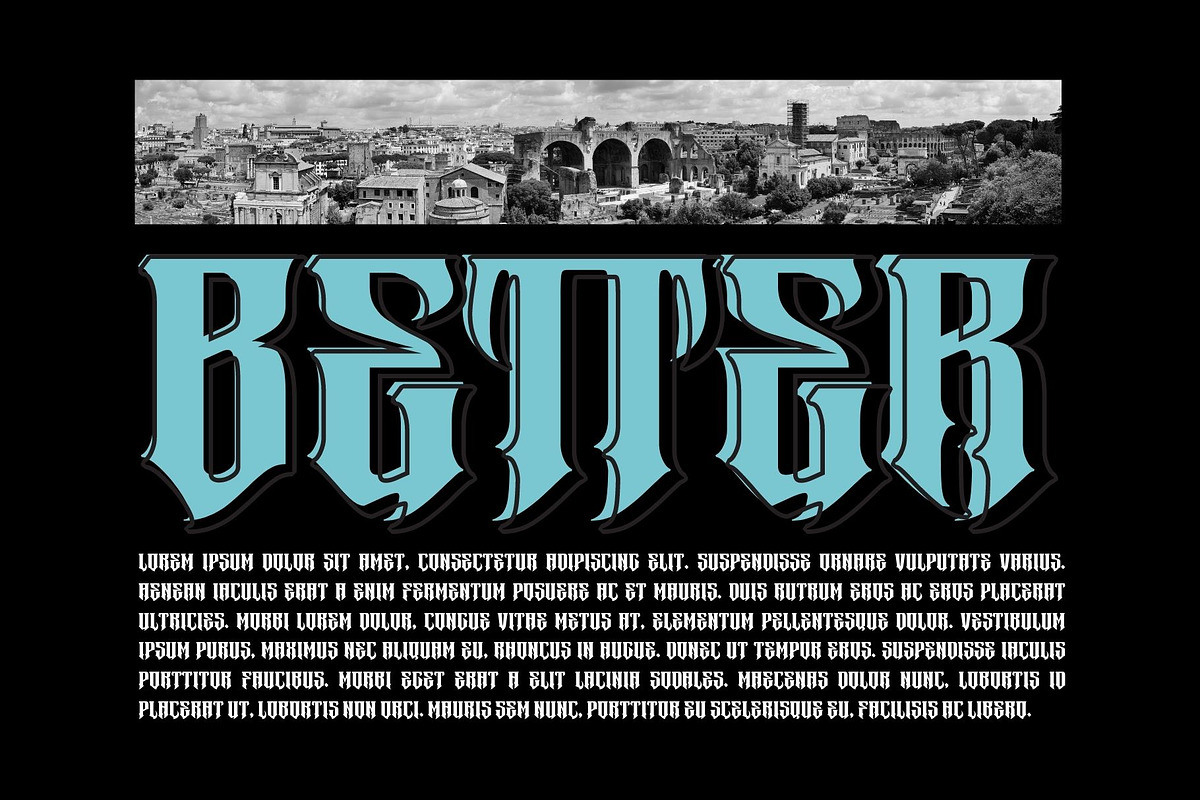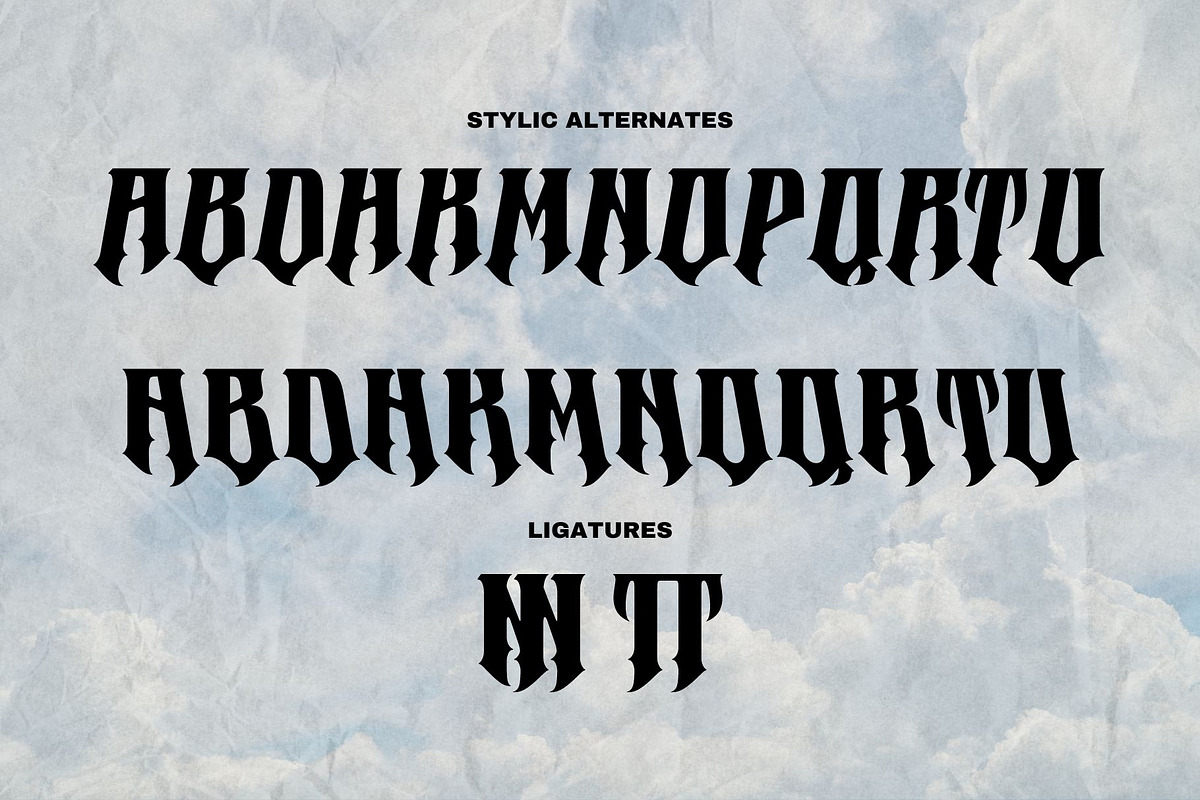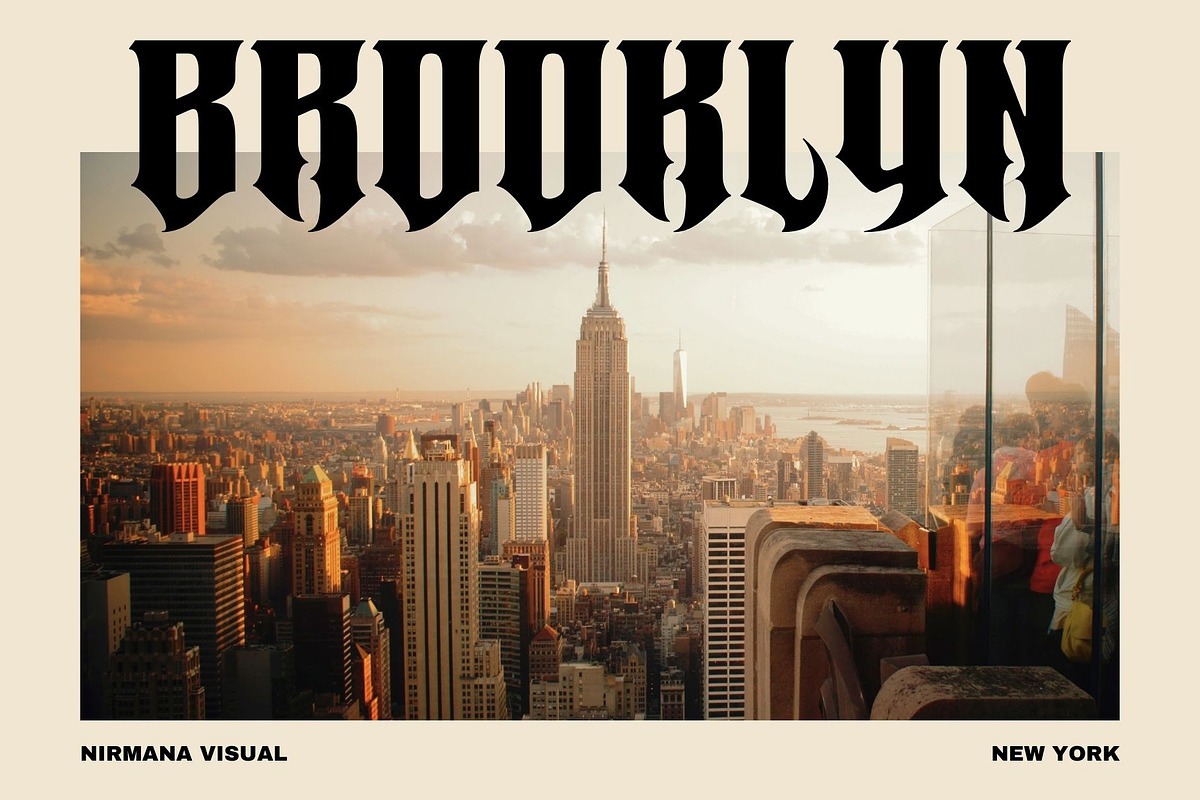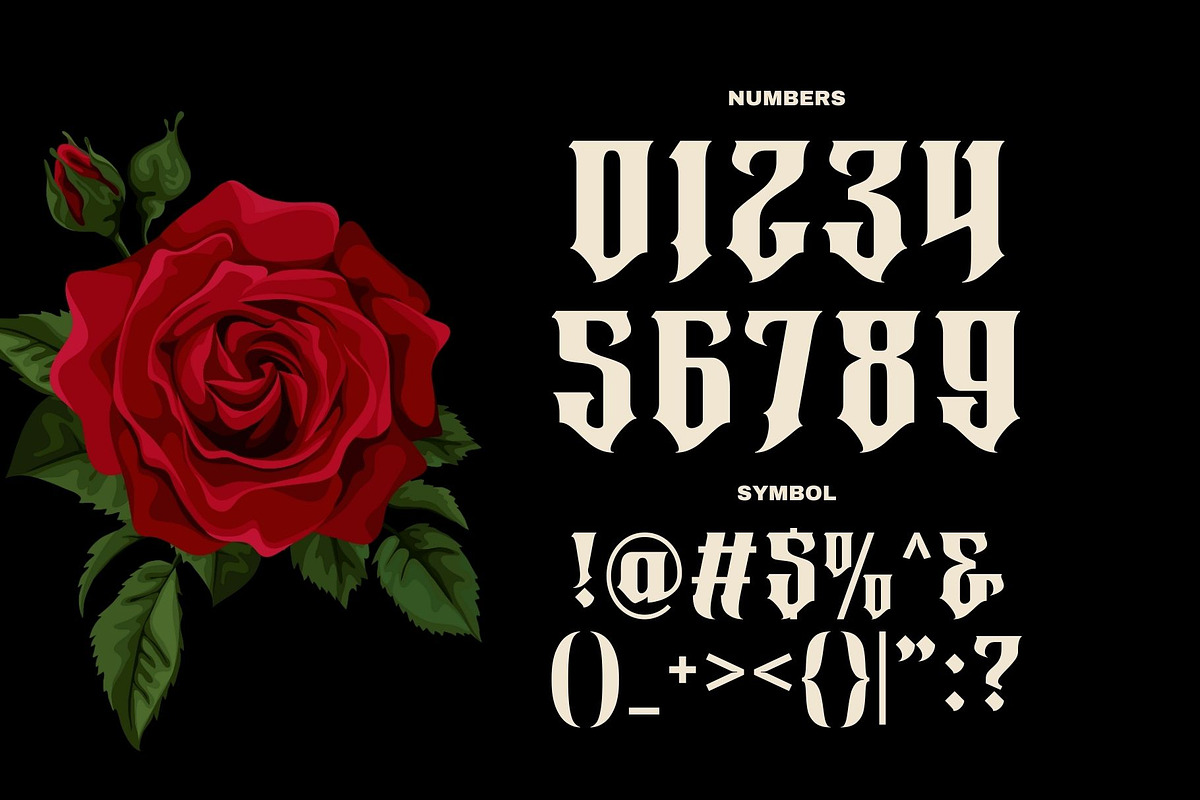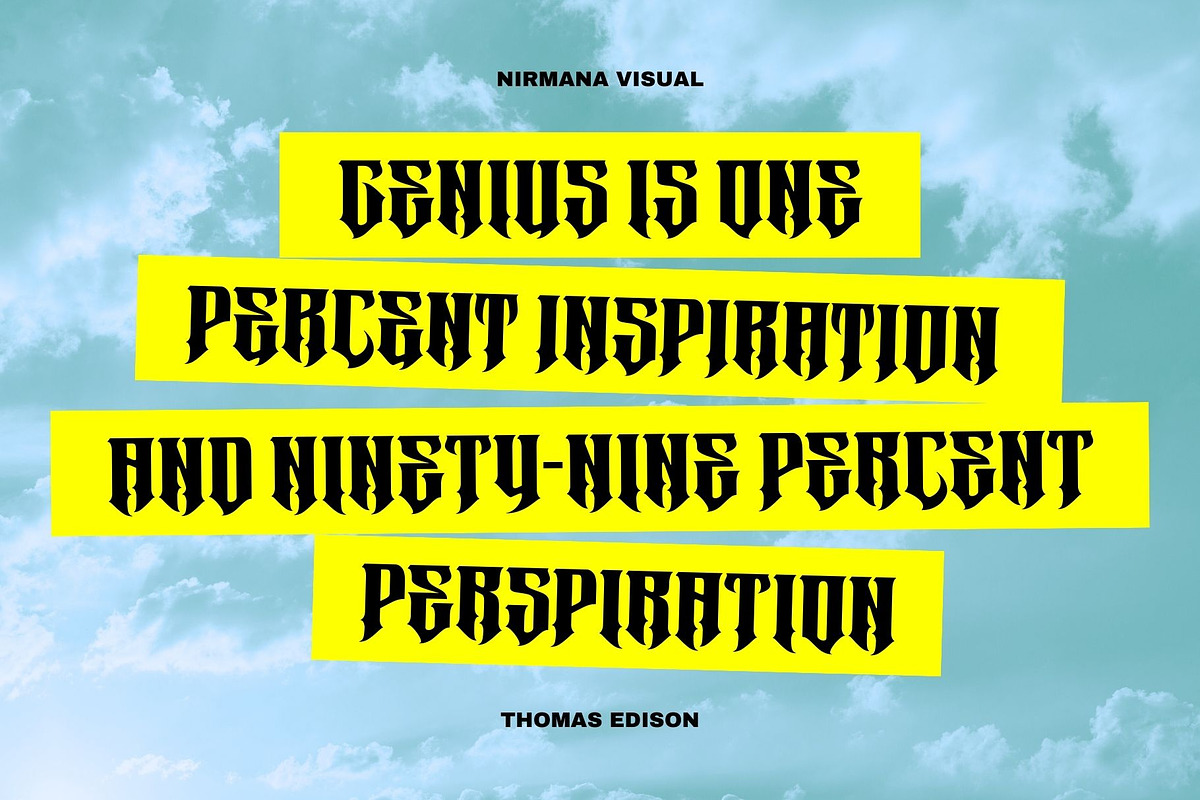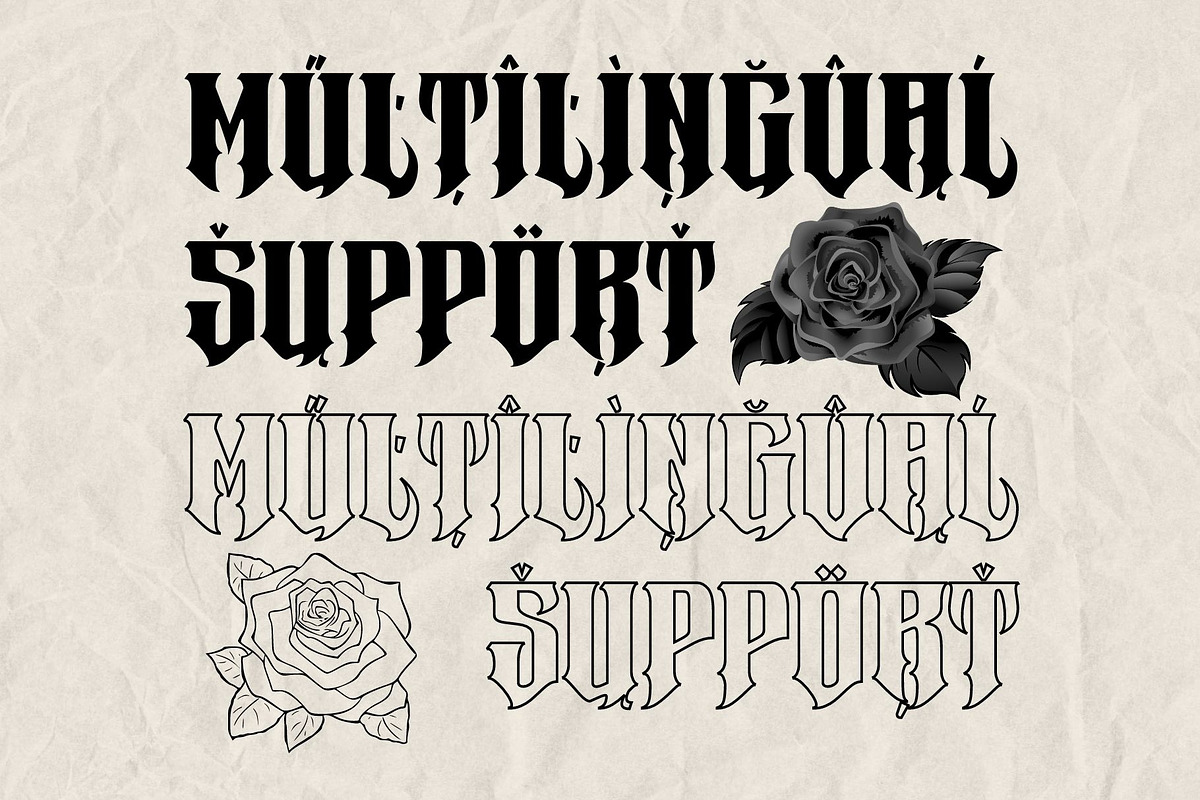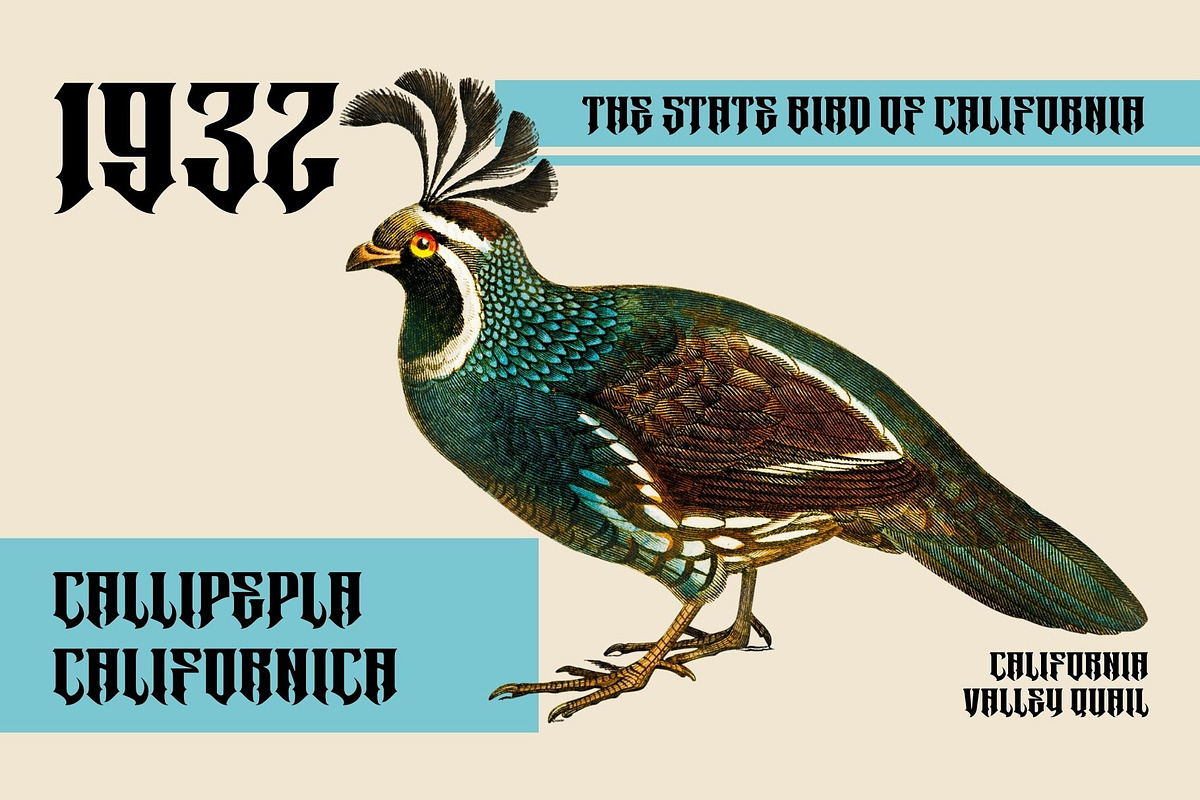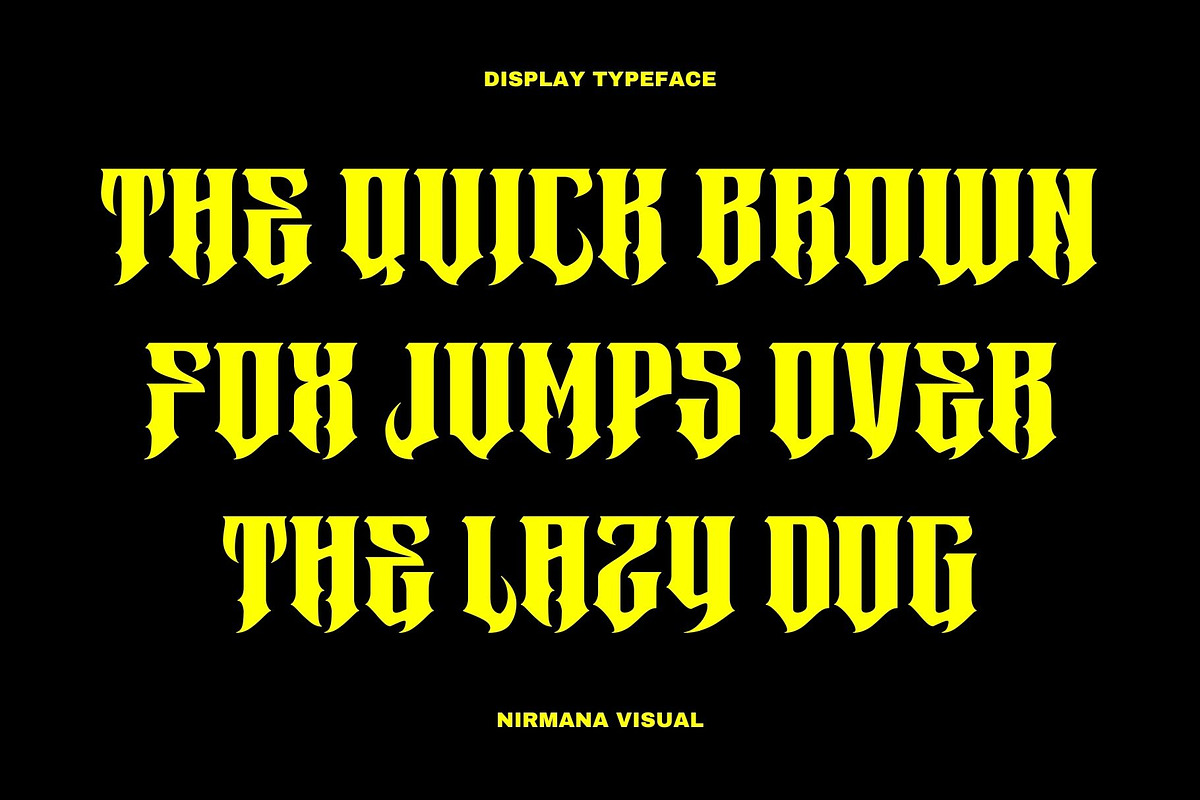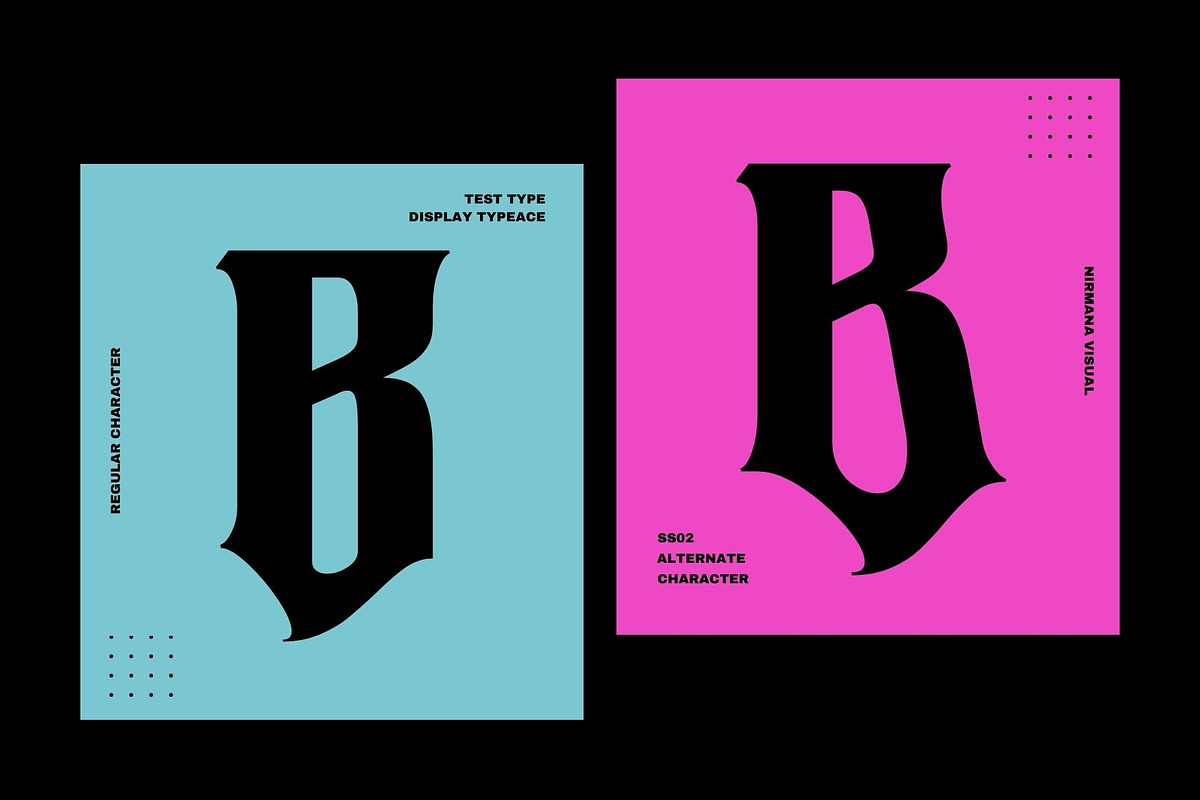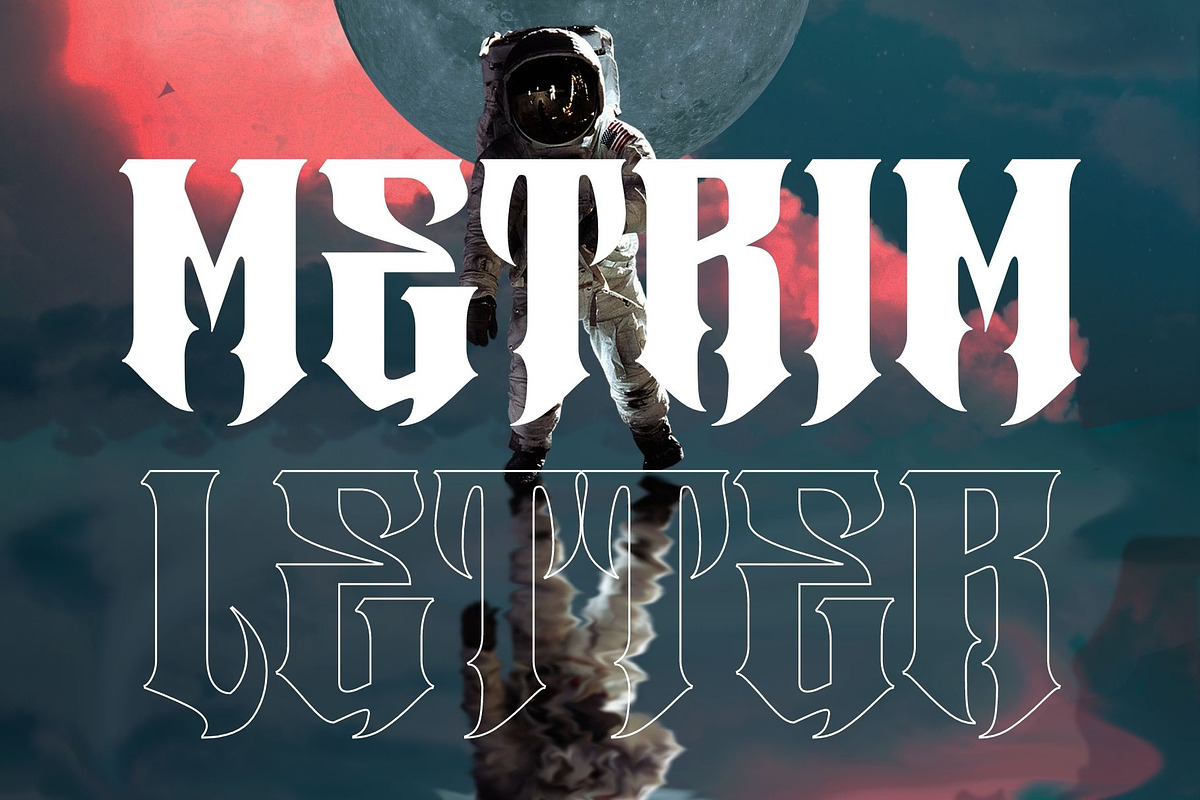
Metrim - Logo Font
Metrim - Modern Font, Serif Display Typeface.
Metrim offers beautiful typographic harmony for a diversity of design projects, including logos & branding, social media posts, advertisements & product designs.